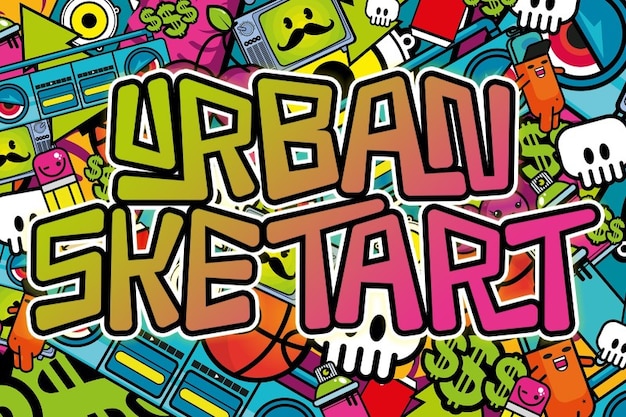
Urban Sketart
Urban Sketart Font
Urban Sketart is a vibrant font that embodies the raw energy of graffiti and urban culture. With its bold, expressive strokes and street-inspired design, it captures the essence of ghetto art and the rapper lifestyle. Perfect for posters, album covers, and edgy branding, Urban Sketart adds an authentic urban flair to any project, making your message resonate with creativity and individuality.